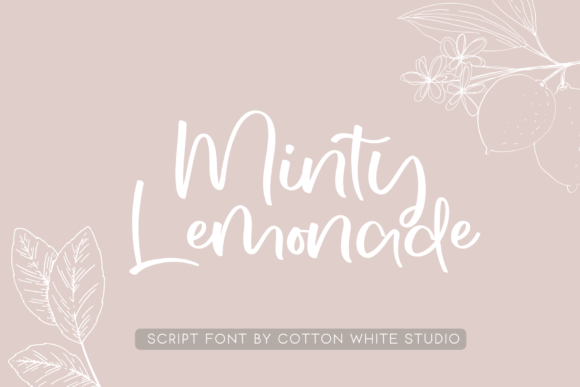
Feast your eyes upon the Minty Lemonade Font, a resplendent creation from the Cotton White Studio, designed to enchant and astound. This script font is an emblem of elegance and grace, its intricate strokes intertwining to form a harmonious tapestry of letters. With Minty Lemonade, you'll discover a font that dances across the page, its curves and loops reminiscent of a bygone era. It's the embodiment of timeless beauty, poised to elevate your projects to new heights of sophistication.
Immerse yourself in the world of Minty Lemonade, where simplicity meets artistry. This font is the perfect choice for crafting logos that exude understated elegance. Its delicate lines and soft edges lend a touch of femininity to any design, making it ideal for projects targeting a refined and discerning audience. Unleash your creativity and let Minty Lemonade guide you towards designing logos that resonate with grace and poise.
Beyond its logo-crafting prowess, Minty Lemonade shines in a myriad of other applications. Its versatility knows no bounds, making it a perfect fit for branding, packaging, social media graphics, and even wedding invitations. Its delicate charm lends a touch of enchantment to any project, leaving a lasting impression on all who behold it.
Minty Lemonade is more than just a font; it's an experience. It's an invitation to immerse yourself in a world of creativity and imagination. With its PUA encoding, you'll have effortless access to a treasure trove of glyphs and swashes, empowering you to unleash your artistic vision.
Embrace the allure of Minty Lemonade and unlock a world of endless creative possibilities. Its timeless beauty and versatility will transform your projects into captivating works of art. Let Minty Lemonade be your muse, guiding you towards design excellence.